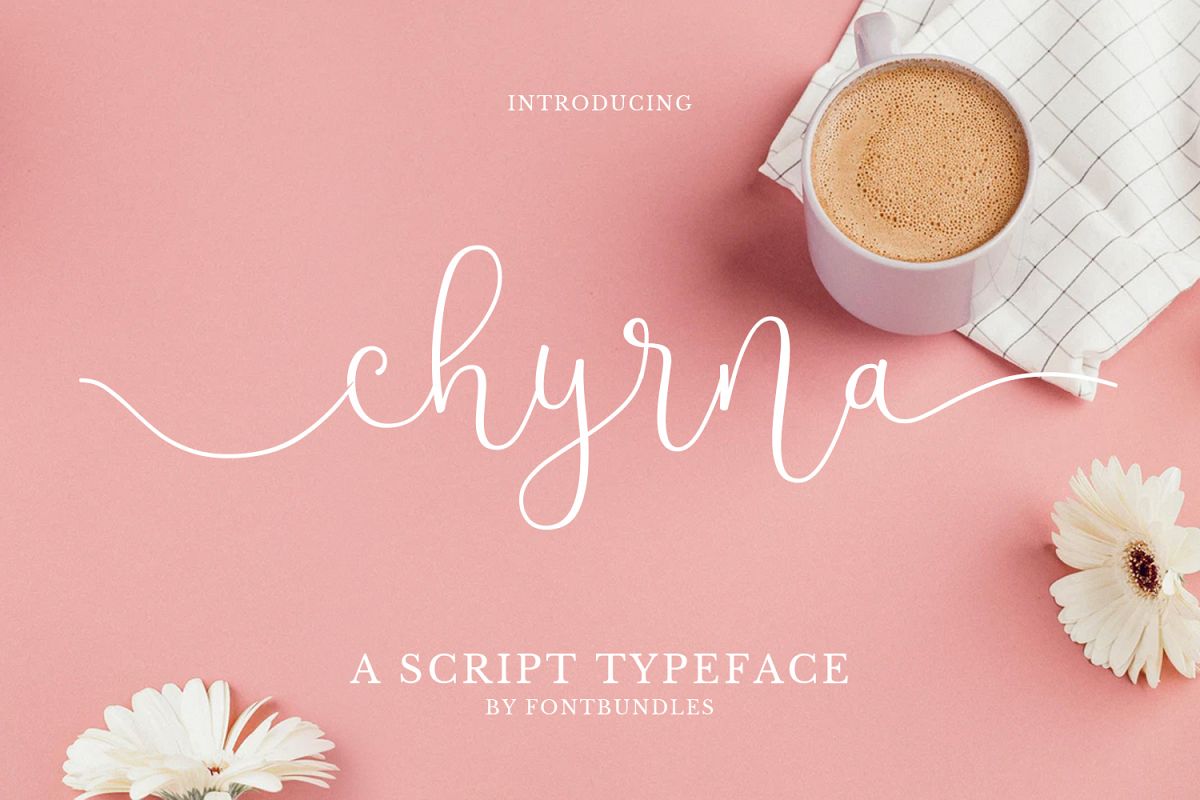
Chyrna is a elegant script typeface. Perfect for quotes, poster, display, logo, logotype, merchandise, business card, branding, product, wedding needs and many more.